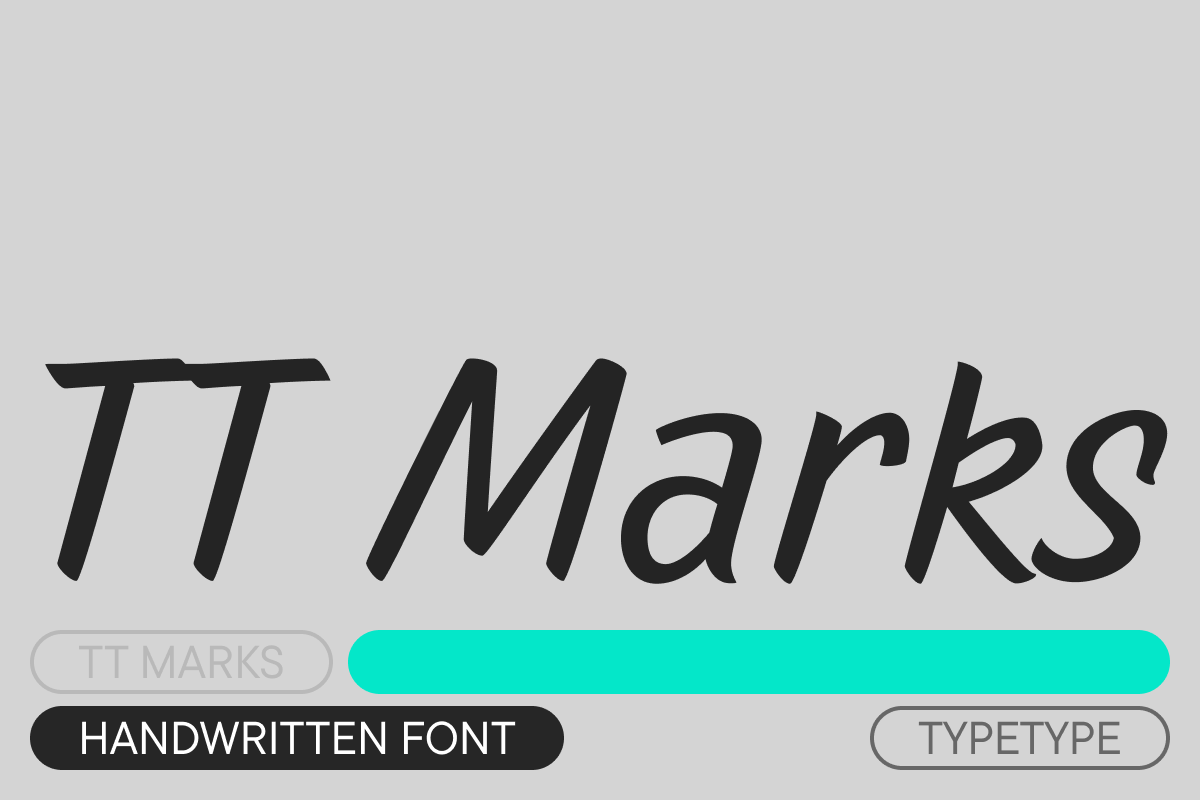
TT Marks Thin
TT Marks delivers a script with dynamic rhythm, heartfelt character, and nostalgic appeal inspired by the classic art of American sign painting. This craft, where skilled artists hand-painted storefront signage with brushes and careful technique, is experiencing a well-deserved renaissance in today's design world. TT Marks infuses projects with vintage appeal and handcrafted warmth that feels genuinely human.